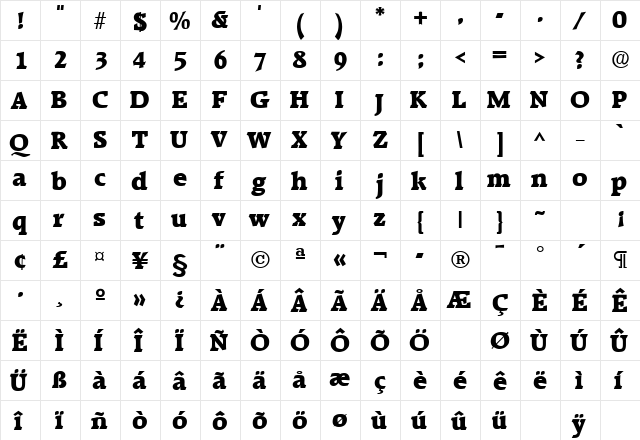
RaleighH Bold
Design Context for RaleighH Typeface
RaleighH offers clean, dependable letterforms without strong stylistic allegiance, making it a practical choice for designers who need flexibility. Its bold stroke weight gives it real presence on the page.